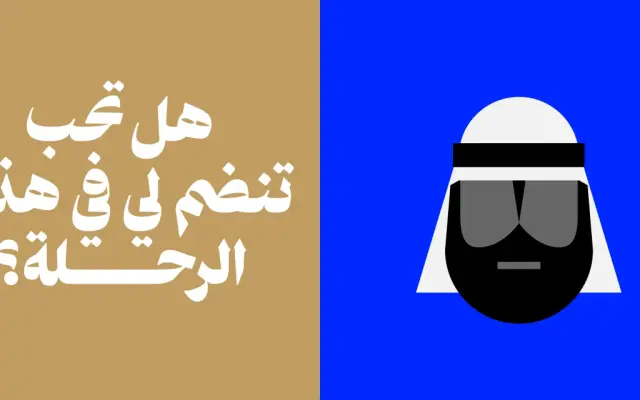
Vesterbro
A high-contrast serif with warm curves and short serifs, running from text-friendly weights through to an expressive Poster cut, with variable font support and coverage across Latin, Greek, Cyrillic and Arabic.
Named after a Copenhagen district, it draws on historical serif influences while keeping a contemporary warmth in its supple curves and short serifs. The family spans six weights from Light to Poster, each with an italic, and is sold as both static fonts and variable fonts covering a continuous weight axis. Four-script support makes it practical for multilingual branding and editorial projects.
A high-contrast serif with short serifs and supple curves, spanning from an expressive Poster weight down to text-optimised styles, placing it firmly in the contemporary serif category rather than a strict historical classification.